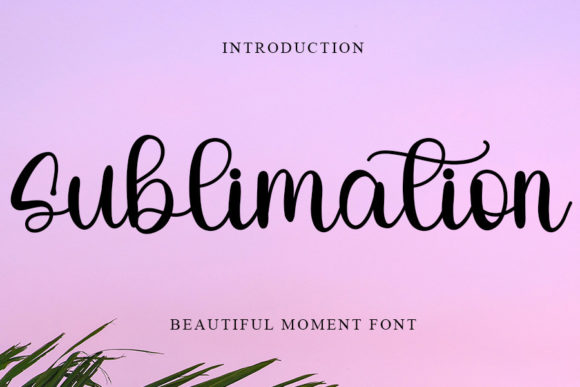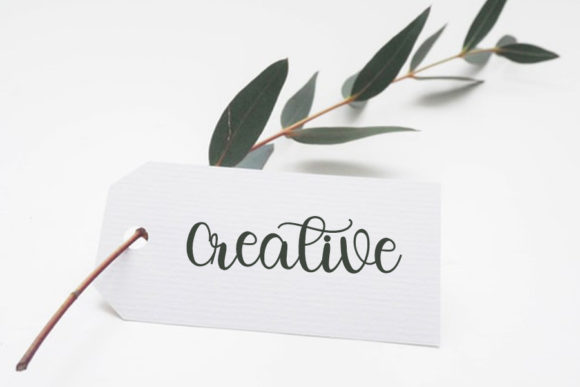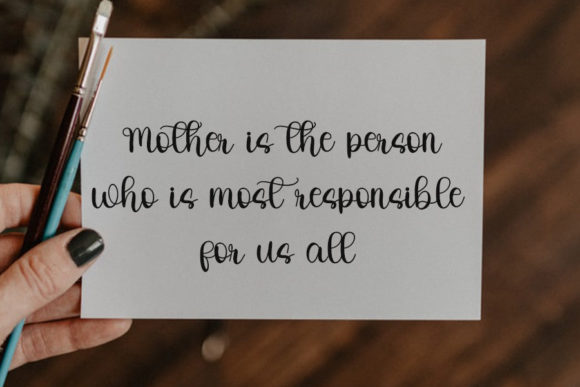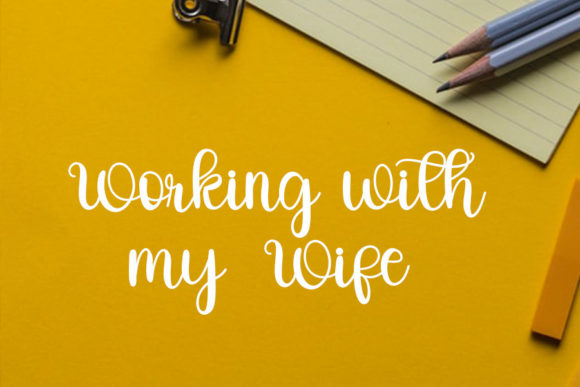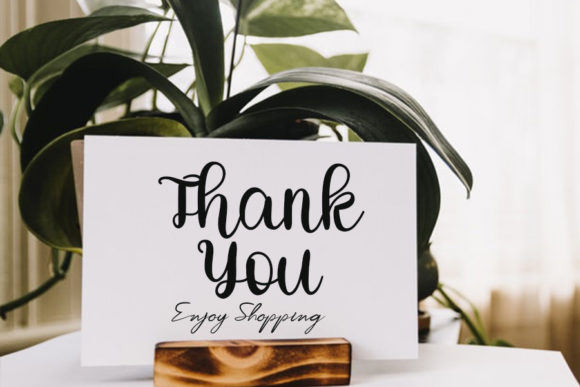
Sublimation Font
About Sublimation Font
Introducing Sublimation, an exquisite handwritten font masterfully designed to become a true favorite. With its classy calligraphic influences and contemporary freshness, Sublimation maintains a unique balance that captivates and elevates your projects to the highest levels.
Sublimation’s exquisite handwritten design sets it apart as a font that captures attention and exudes a sense of elegance. Each letter carries the influence of classic calligraphy, creating a visually appealing composition. The careful craftsmanship and attention to detail make Sublimation a font that stands out with its refined and sophisticated appearance.
While Sublimation maintains its classy calligraphic influences, it also brings a contemporary and fresh touch to your designs. This fusion of traditional and modern aesthetics adds a sense of timelessness and versatility, making Sublimation suitable for a wide range of design projects. Whether used in branding, invitations, packaging, or any other creative endeavor, Sublimation adds a touch of refinement and sophistication.
Fall in love with Sublimation and let its beauty inspire your creativity. Its exquisite design invites you to explore its potential and unleash your artistic vision. Whether used for elegant wedding stationery, luxury branding, or delicate typography-based designs, Sublimation brings a touch of elegance and artistry to your projects.
Sublimation’s versatility allows it to adapt to different design contexts. Its graceful letterforms and smooth connections create a harmonious flow that enhances readability and visual appeal. Whether used for headlines, body text, or decorative elements, Sublimation maintains its allure and adds a touch of sophistication to your compositions.
In summary, Sublimation is an exquisite handwritten font that combines classy calligraphic influences with a contemporary and fresh feel. Its masterful design and refined appearance make it a true favorite for designers seeking elegance and sophistication. Embrace Sublimation’s timeless beauty and let it elevate your projects to the highest levels, creating visually captivating compositions that leave a lasting impression.